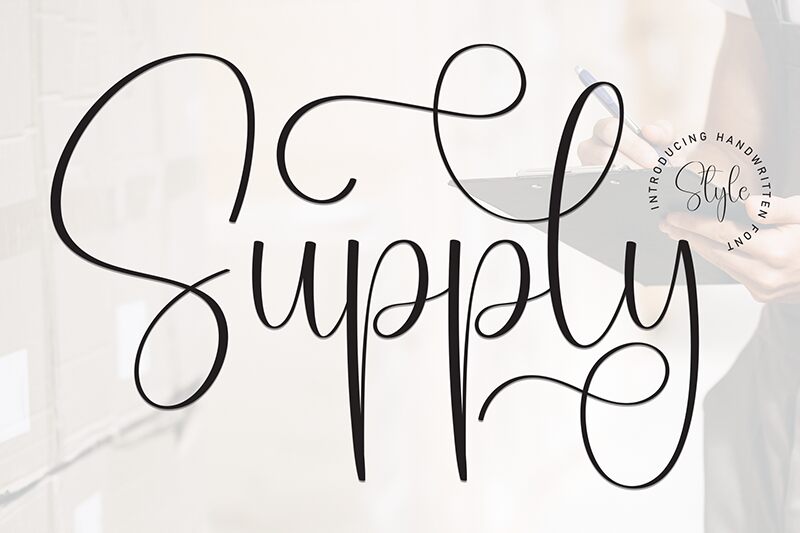
Supply
Supply font by Scratchones is a free calligraphy font that reflects elegance and flow in each letter. Light and modern, the script has a fresh aesthetic suitable for latest generation projects. The key characteristics are the smooth curves, expressive movements, and an overall artistic flair.
Use Supply font in elegant logo design, blogs dedicated to nature or beauty, watermarks for photography or fashion magazines. Try it in poster design for youth events such as choirs or summer camps, cosmetics branding and packaging projects. It will look great on book covers related to romance stories and even fine-dining restaurants menus invitations.